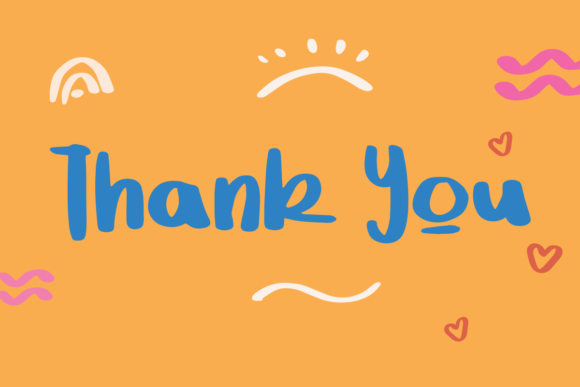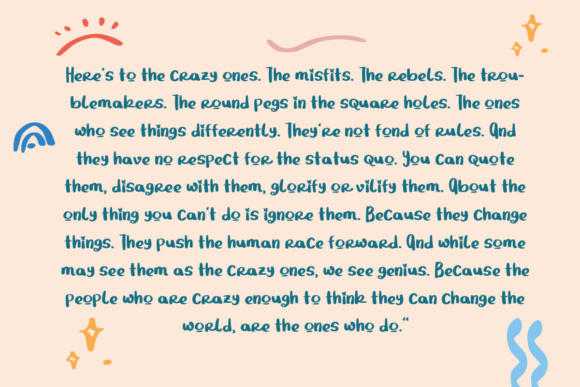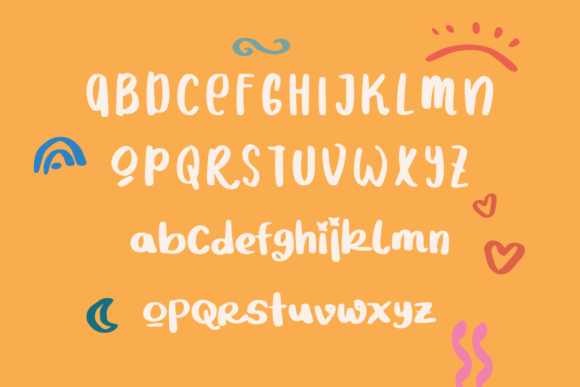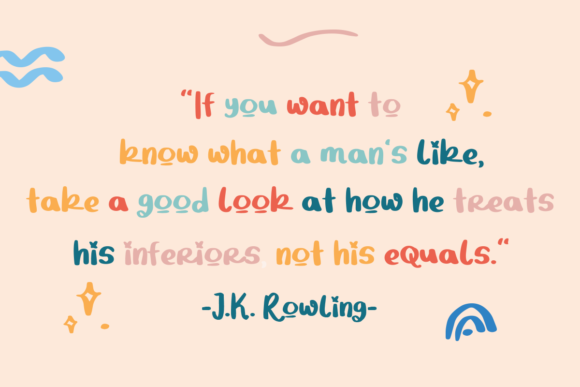
About Gorilazy Font
Gorilazy is a playful and cute paint brushed script font. It embodies playfulness and authenticity and is the perfect choice for any children activity or school project.